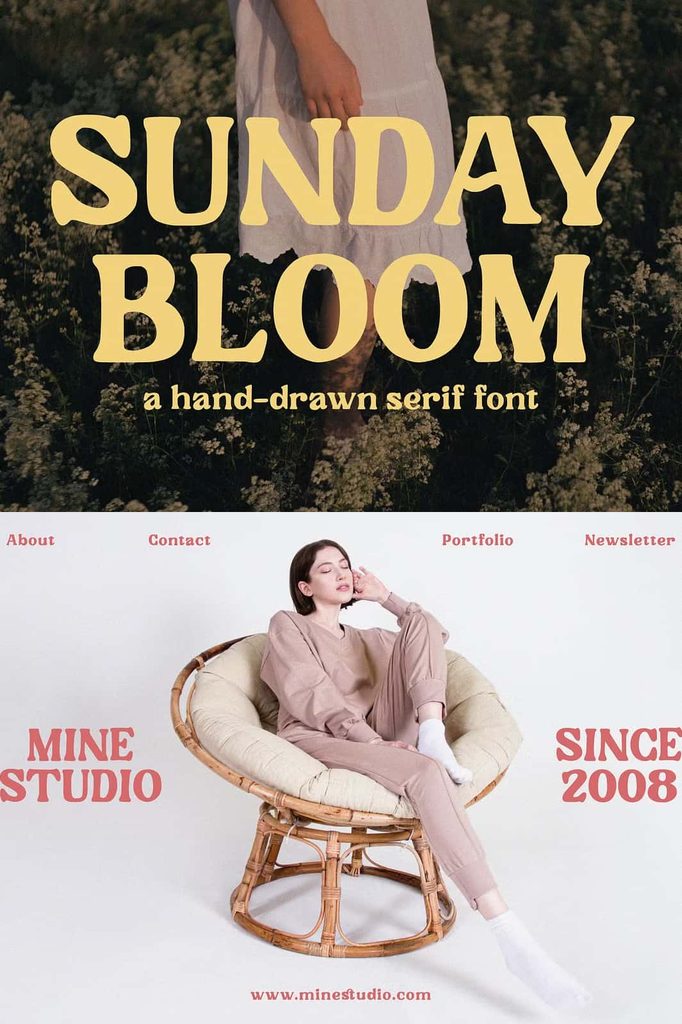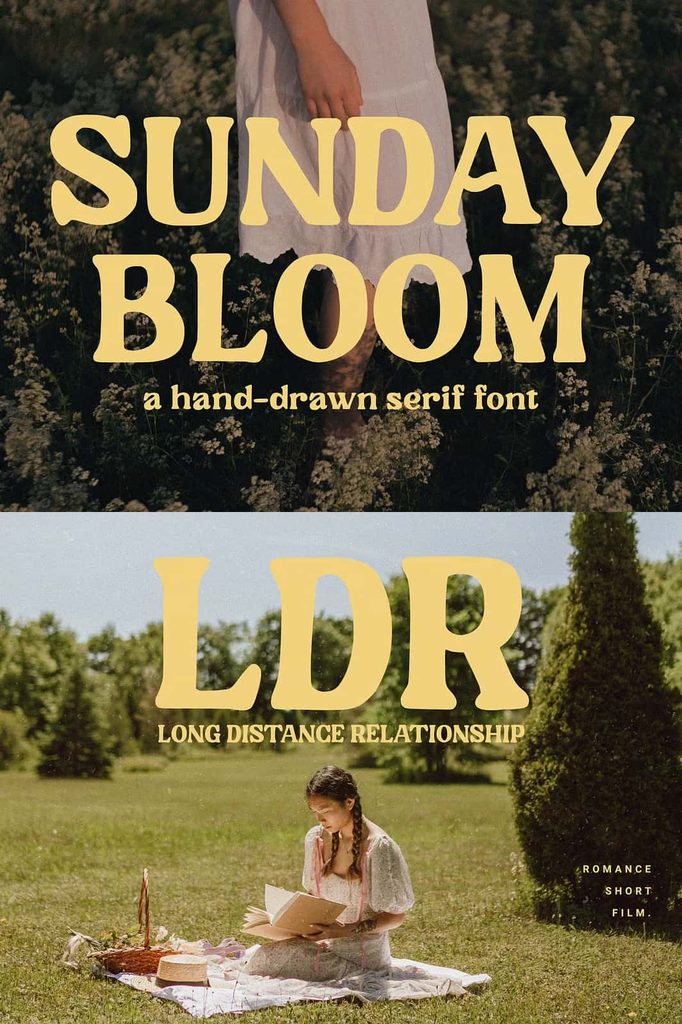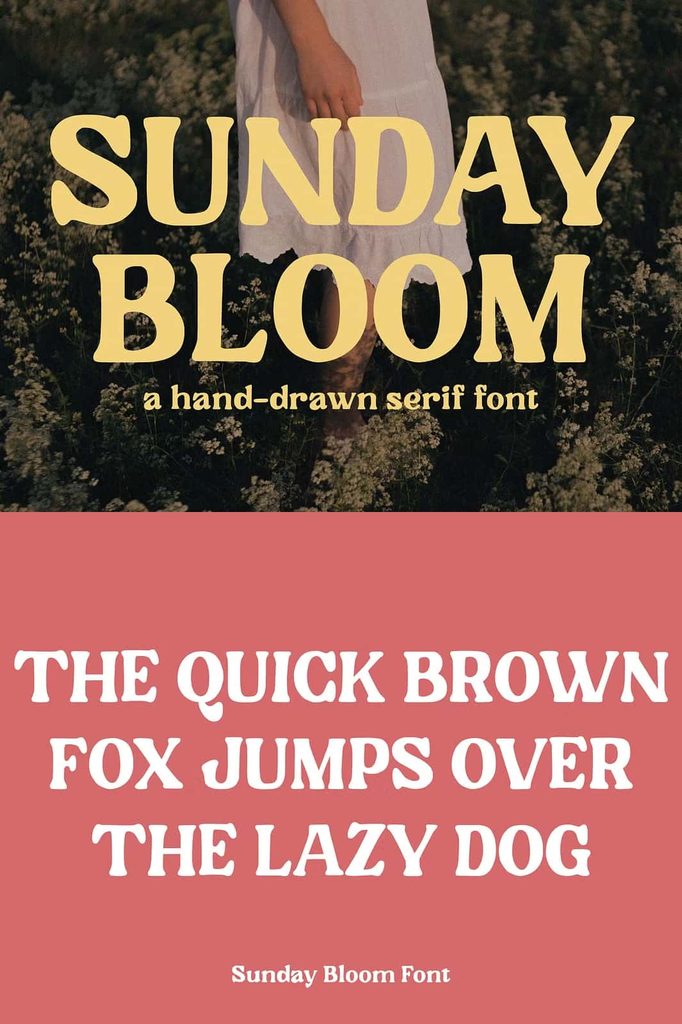
Sunday Bloom Font
Sunday Bloom Font brings a relaxed, handcrafted personality to modern design. This hand drawn font combines a simple contemporary appearance with a subtle rustic touch, giving designers an easy way to create warm, natural, and approachable visuals. Its casual character helps designs feel personal without sacrificing a clean and modern presentation.
Designed for creative projects that need personality, Sunday Bloom works beautifully across branding, logos, social media graphics, covers, promotional materials, and many other applications. The hand drawn appearance gives your typography an authentic quality that can make a design feel more inviting and memorable.
Whether you are building a new visual identity or adding a handcrafted accent to an existing project, Sunday Bloom offers a flexible typographic style. Its combination of modern simplicity and rustic charm allows you to create designs that feel contemporary while maintaining a warm, organic character.
A Modern Hand Drawn Font with Rustic Character
Sunday Bloom stands out through its hand drawn aesthetic. Rather than presenting the perfectly mechanical appearance often associated with traditional digital typefaces, it introduces a more natural visual rhythm. This handcrafted quality gives each design a sense of movement and personality.
The font also maintains a simple modern character, which makes it easy to incorporate into different design styles. You can use it in minimal layouts, rustic compositions, lifestyle branding, creative advertisements, or casual social media content. Its versatility allows you to experiment with different visual directions while keeping your typography consistent.
The rustic influence adds another layer of character. It can complement natural textures, earthy layouts, handmade products, vintage-inspired graphics, botanical themes, and cozy lifestyle designs. At the same time, its contemporary foundation prevents the overall appearance from becoming overly traditional.
Perfect for Logo Design
Sunday Bloom Font can help create distinctive and approachable logos. Its handcrafted appearance gives brand names a personal quality that can help businesses establish a friendly visual identity. The font works particularly well for brands that want to communicate creativity, warmth, simplicity, or an artisan-inspired personality.
Use Sunday Bloom as the primary lettering for a wordmark, or combine it with a complementary font to establish a clear hierarchy. A clean secondary typeface can support additional information while Sunday Bloom captures attention with its expressive character.
The font can suit small businesses, creative studios, handmade shops, lifestyle brands, cafés, boutiques, photographers, event businesses, craft brands, and other creative ventures. Its natural appearance helps transform an ordinary brand name into a more memorable visual element.
Ideal for Branding Projects
A strong brand identity needs typography that communicates personality. Sunday Bloom provides a handcrafted visual voice that can help brands appear more welcoming and authentic. Its modern simplicity also makes it practical for creating a consistent identity across different marketing materials.
Use the font across business cards, packaging, labels, social media templates, promotional graphics, website banners, signage, and marketing materials. Keeping the typography consistent across these applications can help customers recognize your brand more easily.
Sunday Bloom works especially well when paired with natural design elements. Consider combining it with botanical illustrations, paper textures, subtle grain, neutral backgrounds, simple line art, or organic shapes. These elements can reinforce its rustic personality without overwhelming the typography.
Bring Personality to Social Media Designs
Social media graphics often need strong typography that catches attention quickly. Sunday Bloom can help you create memorable posts, promotional announcements, inspirational quotes, campaign graphics, product features, and branded content.
Its hand drawn style introduces an informal quality that works naturally with lifestyle content. You can use it for short headlines, featured words, promotional messages, or quote graphics. Combine it with clean supporting typography to create contrast and maintain readability.
For branded social media content, use consistent typography, spacing, and positioning across your templates. Sunday Bloom can become a recognizable part of your visual system and help your posts maintain a cohesive appearance across different platforms.
Creative Covers and Editorial Designs
Sunday Bloom also provides an expressive option for covers. Use it on book covers, journal covers, album artwork, magazine graphics, digital publications, or creative presentation covers. Its handcrafted personality can help establish a distinctive mood before the viewer reads the rest of the content.
If your project needs a modern font with a relaxed and rustic touch, Sunday Bloom offers a versatile solution. It helps transform simple words into expressive design elements while maintaining an approachable visual style that works across both personal and commercial creative projects.